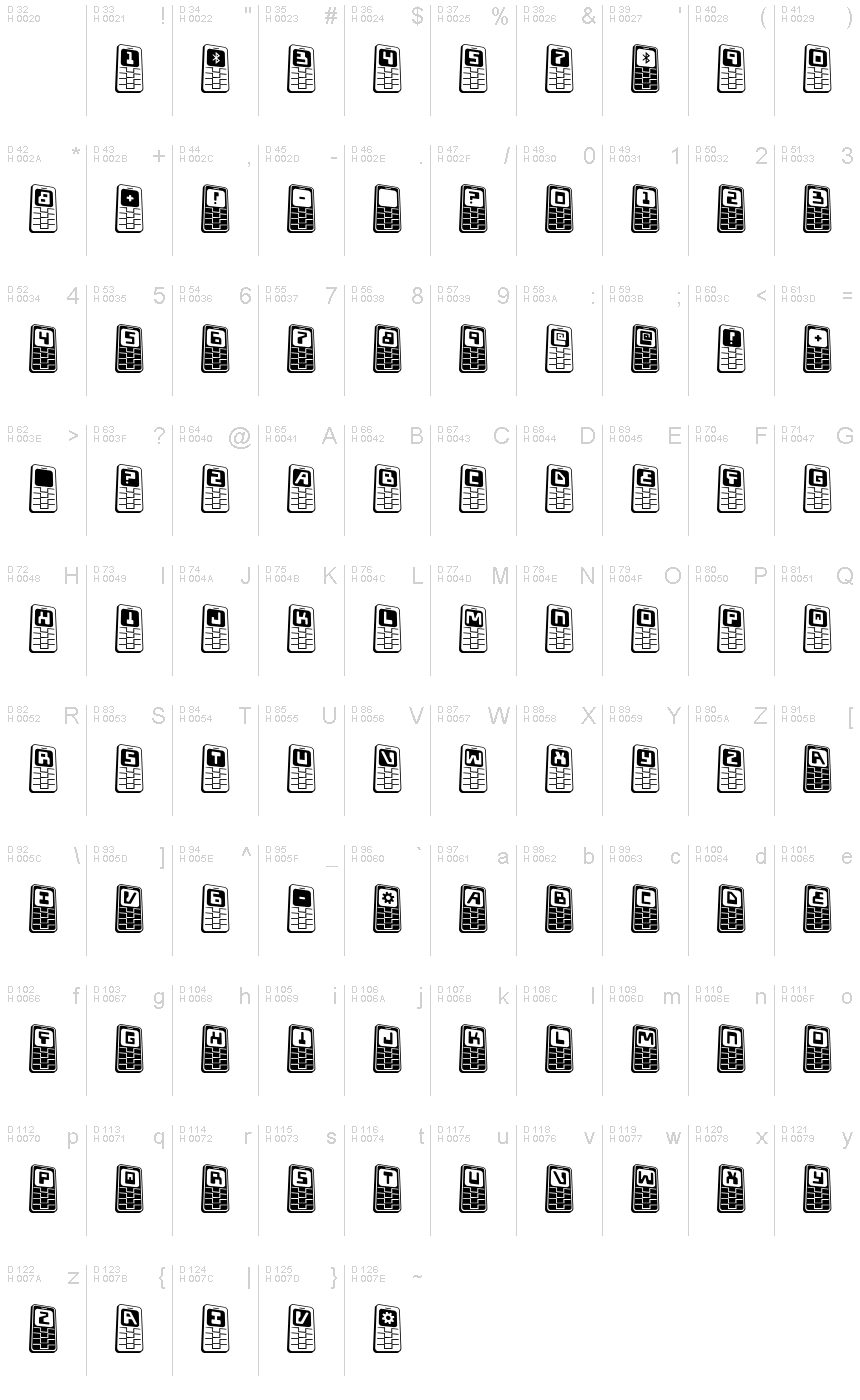
Hola Mota Bold 3D
Hola Mota Bold 3D, a captivating display font designed by Iconian Fonts, exudes a captivating blend of boldness and dimensional depth. With its striking black-and-white geometric patterns, this font effortlessly captures attention, evoking a sense of modern sophistication and a touch of retro flair. The sharp, angular letterforms and three-dimensional effect create a visually compelling aesthetic that would elevate any design project seeking to make a bold statement.
Hola Mota Bold 3D's versatility lends itself to a variety of applications, from eye-catching headlines and logos to impactful signage and packaging designs. Its distinctive style would seamlessly integrate into branding and marketing materials, effortlessly grabbing the audience's attention and leaving a lasting impression. Whether you're crafting a dynamic fashion campaign, designing an innovative tech startup's identity, or curating a sleek and modern editorial layout, Hola Mota Bold 3D is a versatile choice that would elevate the visual impact of your project.